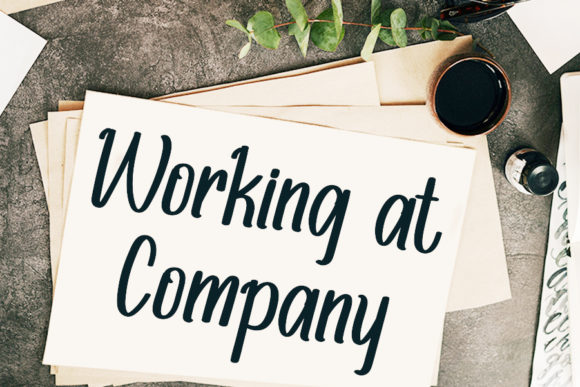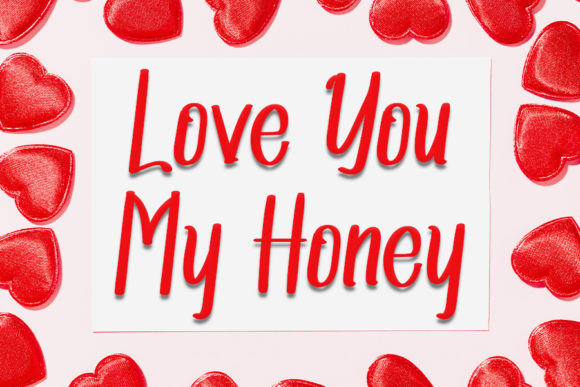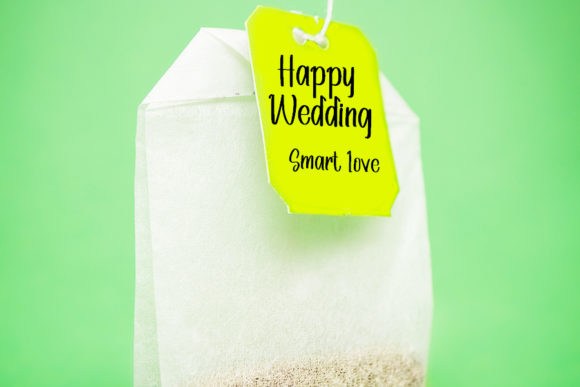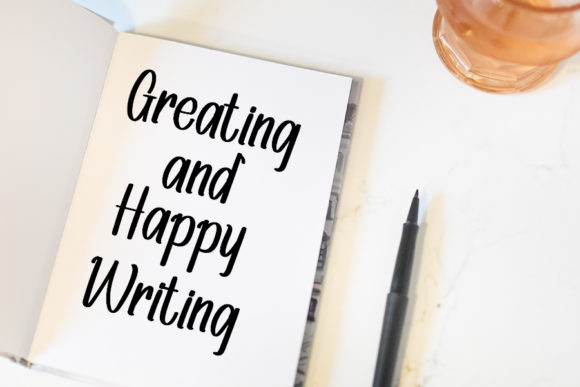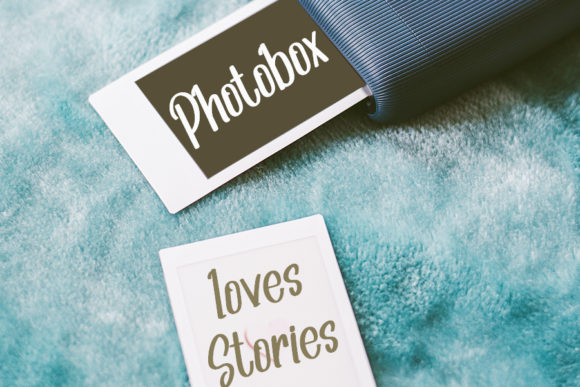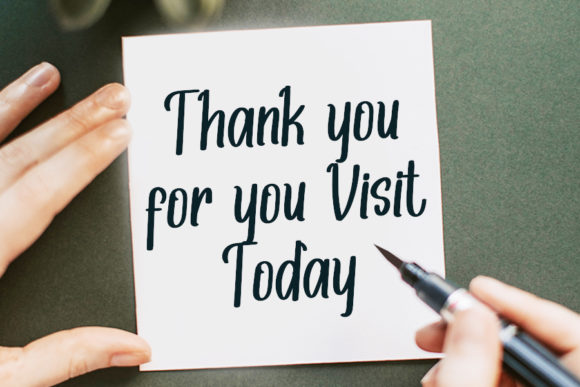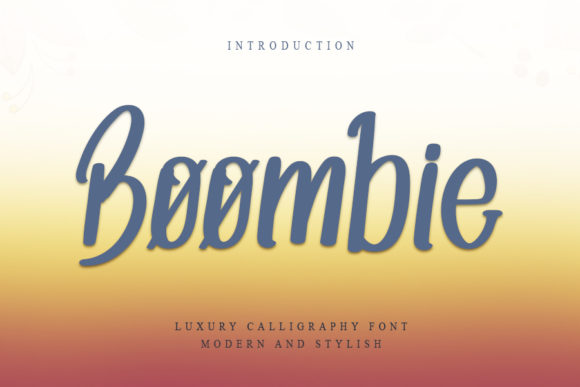
Introducing Boombie Font: Elevate Your Design with Luxury and Elegance
Are you a designer or crafter looking for a font that adds a touch of luxury and sophistication to your projects? Look no further than Boombie Font, a beautiful light handwritten font that is sure to make your designs stand out. With its unique feel and stunning impact, Boombie Font is the perfect choice for anyone looking to elevate their design game.
The Unique Features of Boombie Font
Boombie Font is a one-of-a-kind font that boasts a range of unique features that set it apart from other fonts. Its light and airy feel gives it a sense of elegance and sophistication, making it perfect for designs that require a touch of luxury. The font’s handwritten style also adds a personal touch, making it ideal for projects that require a more human and approachable feel.
Adding a Luxury Spark to Your Designs
Boombie Font is designed to add a luxury spark to any design project. Whether you’re working on a branding project, a website, or a craft project, this font is sure to make your designs shine. Its unique feel and stunning impact will instantly elevate your designs, giving them a high-end look and feel that is sure to impress.
Boombie Font is perfect for designers and crafters who are looking for a font that is both elegant and versatile. Whether you’re working on a professional project or a personal craft project, this font is sure to meet your needs. Its light and airy feel makes it perfect for designs that require a touch of sophistication, while its handwritten style adds a personal touch that is sure to make your designs stand out.
Boombie Font is a beautiful light handwritten font that is sure to add a luxury spark to any design project. Its unique feel and stunning impact make it perfect for designers and crafters who are looking for a font that is both elegant and versatile. With its ease of use and compatibility with a range of design software, Boombie Font is a must-have for anyone looking to elevate their design game.